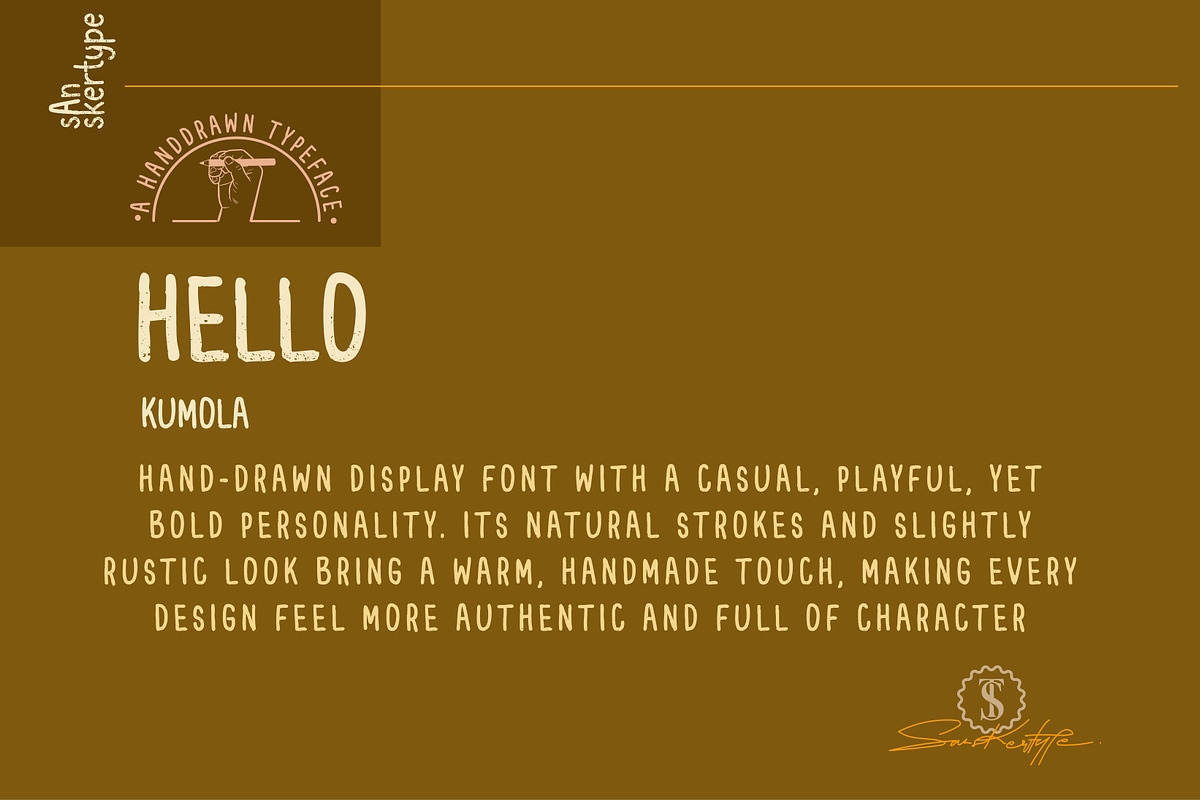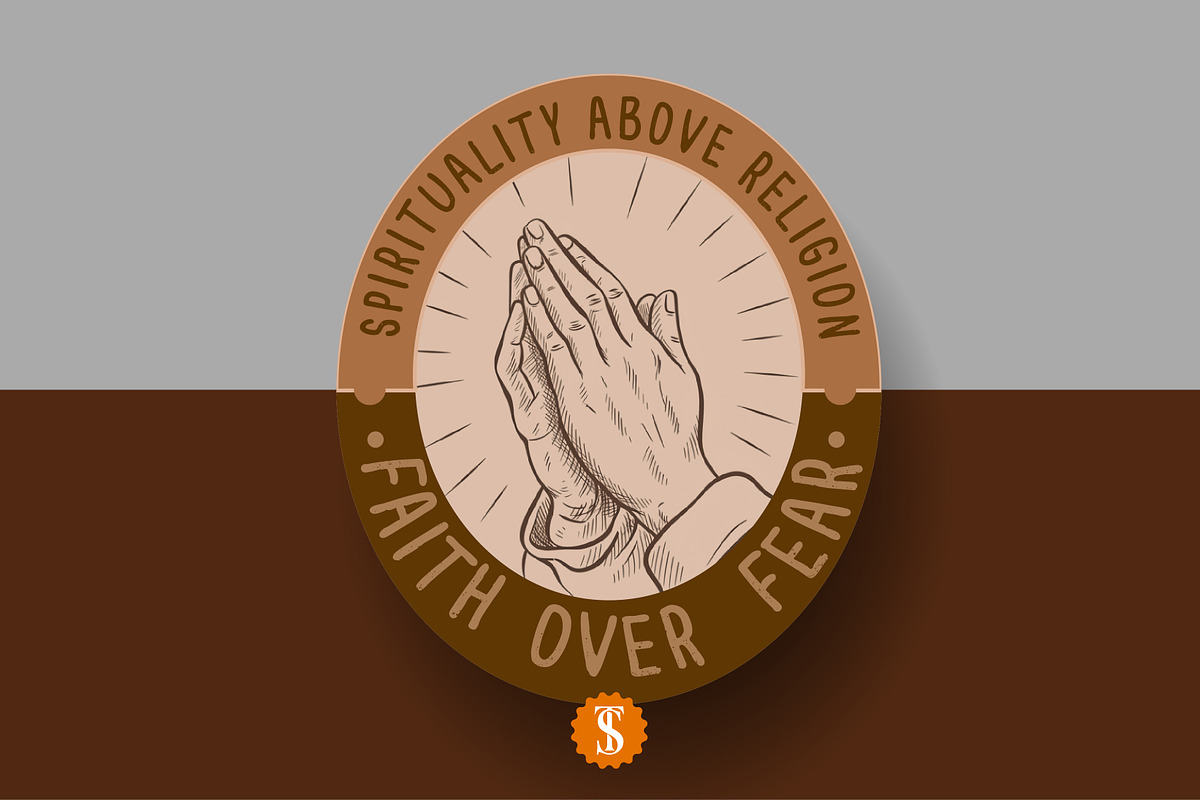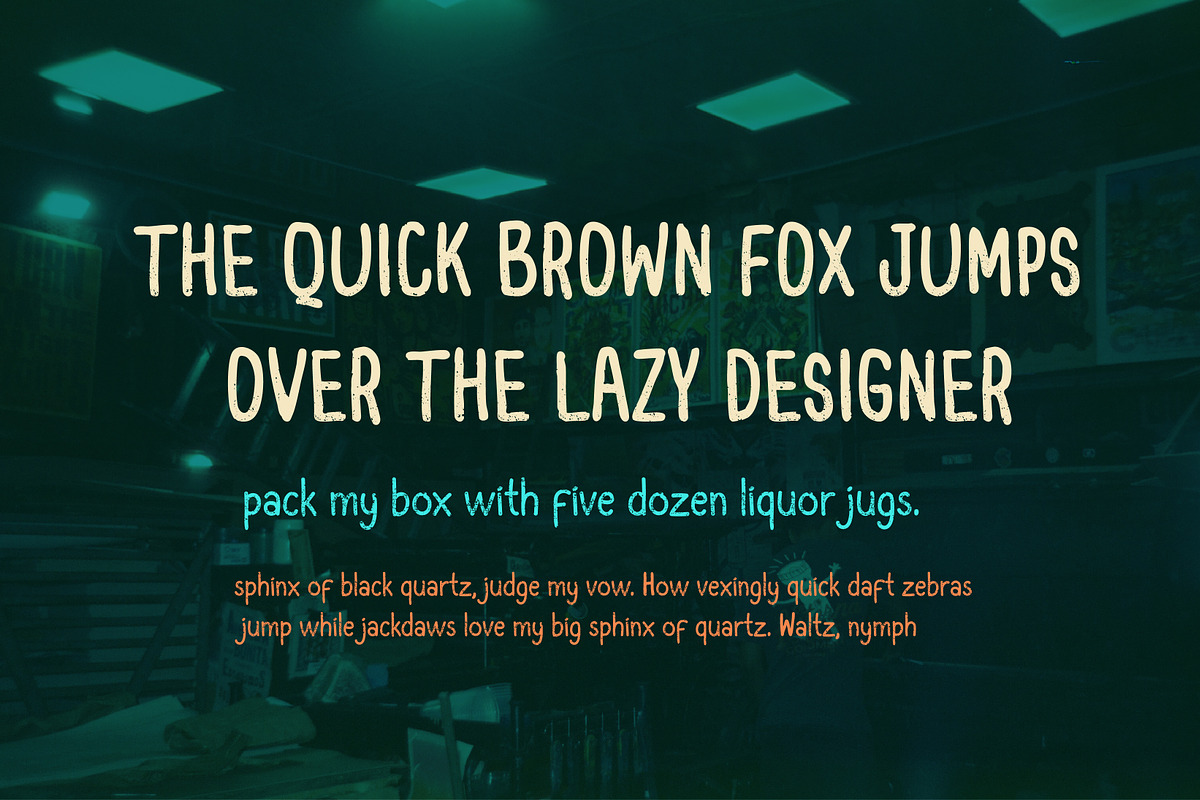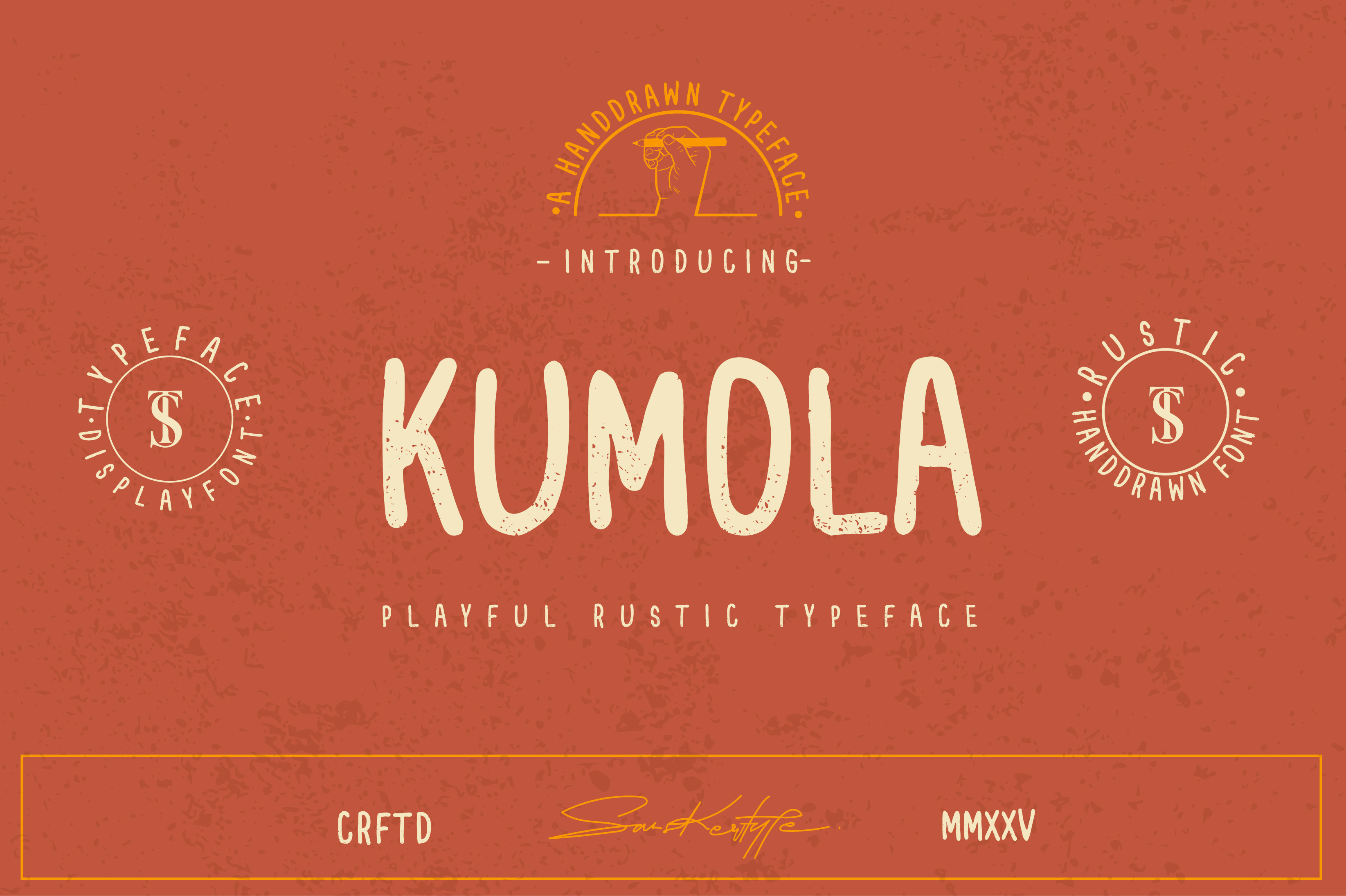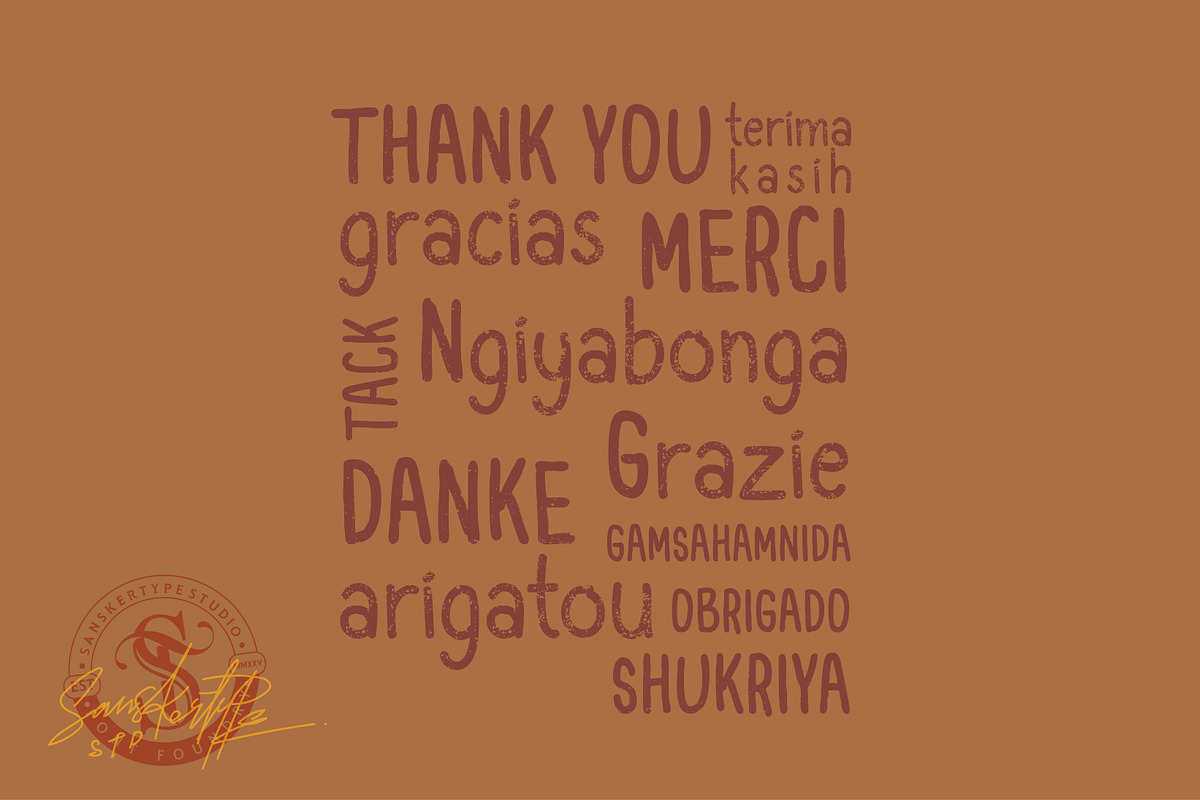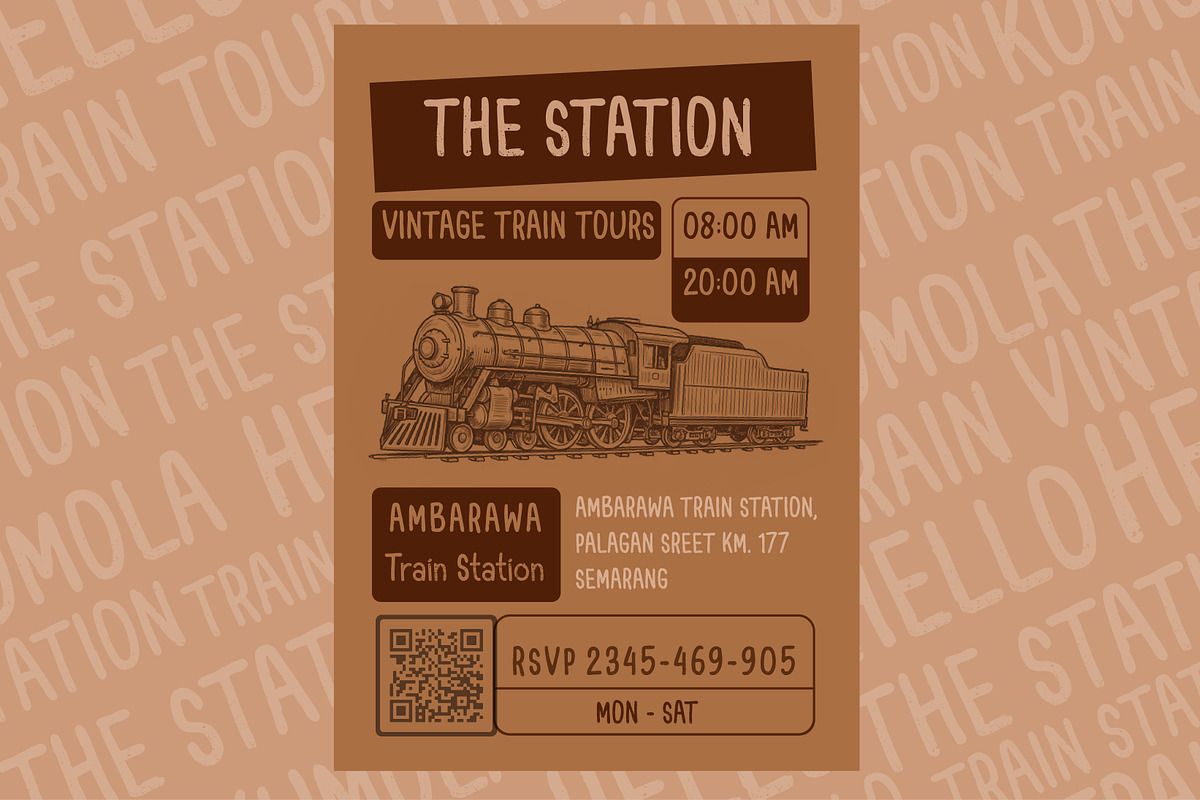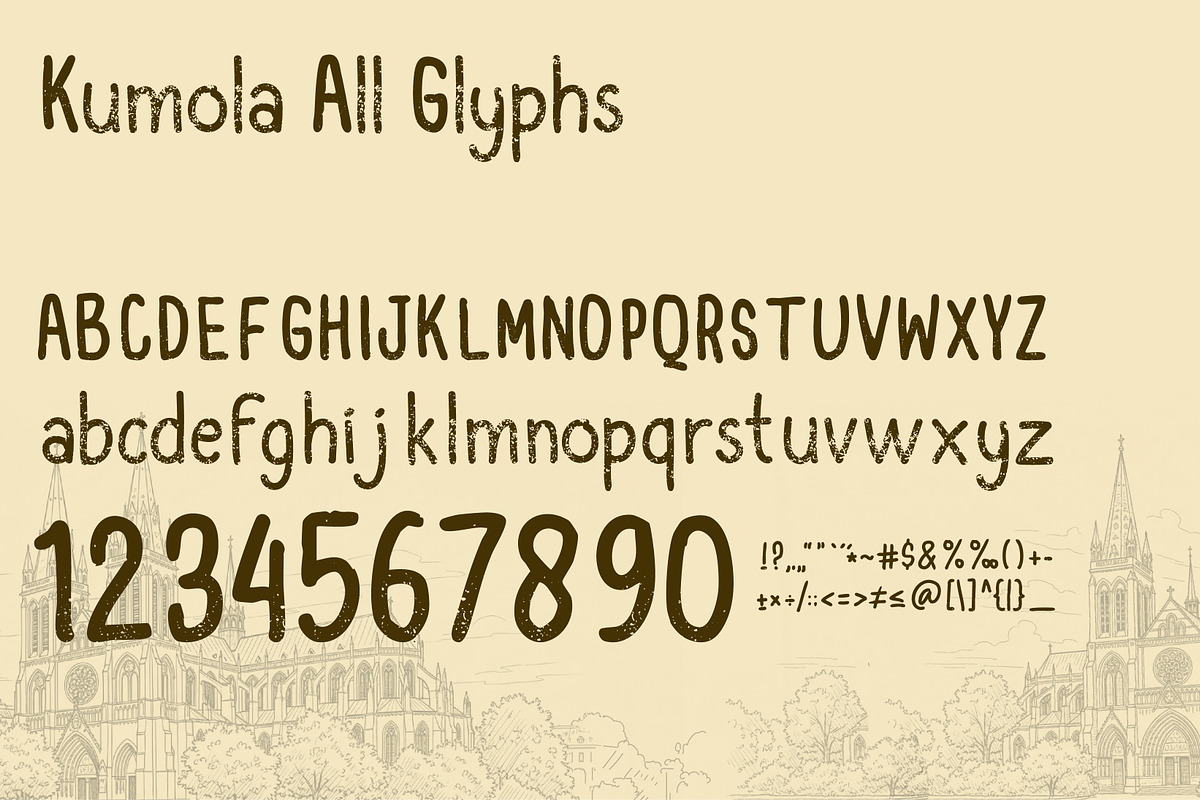
Kumola - Playful Rustic Typeface
Kumola is a hand-drawn display typeface with a rustic yet playful personality. Its natural strokes and imperfect handmade touch bring warmth, charm, and authenticity to your design. With a casual look that feels both modern and nostalgic, Kumola is perfect for projects that need character and a human touch.
- Numbers & Punctuationl
This font works beautifully for:
- Branding & logo design
- Posters & flyers with a retro or indie vibe
- Packaging for artisanal or handmade products
- Apparel, t-shirt prints & merchandise
- Quotes, editorials, and decorative graphics
Add a dose of playful rustic energy to your work — Kumola will make your design stand out with its bold personality and crafted feel.